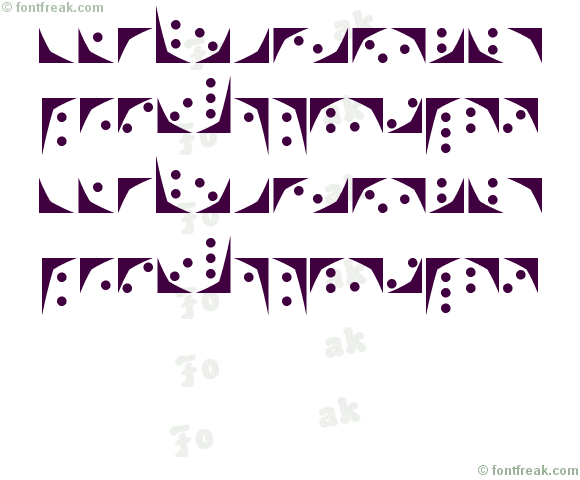
Nox
Nox, designed by Nick Polyarush, is a striking decorative font that captures an ancient aesthetic while maintaining a modern appeal. This freeware typeface stands out with its unique blend of bold strokes and intricate detailing, making it a captivating choice for various design applications. The font features a medium stroke weight and a balanced contrast that enhances legibility, while its distinctive character shapes are adorned with subtle decorative elements inspired by ancient scripts.
The Nox font is perfect for a variety of creative projects. Its elegant yet bold appearance makes it an excellent choice for wedding invitations, where a touch of sophistication is desired. Additionally, it can elevate movie posters, providing a dramatic flair that draws attention. For restaurant menus, Nox adds a unique charm that can entice diners, while also serving well in branding materials for small businesses aiming to create a memorable impression. Content creators will find this font ideal for online graphics, social media posts, and promotional materials, thanks to its captivating design that resonates with diverse audiences.
Targeting graphic designers, small business owners, and content creators, the Nox font is versatile enough to adapt to various styles and themes, ensuring that it meets the needs of different projects. Its free availability allows for easy access, making it a practical choice for those looking to enhance their designs without incurring costs.
In conclusion, the Nox font stands out due to its perfect fusion of ancient inspiration and contemporary design. Its decorative qualities and adaptability make it a valuable asset for any creative endeavor, and the Nox font free download ensures that it is accessible for everyone seeking to elevate their projects.